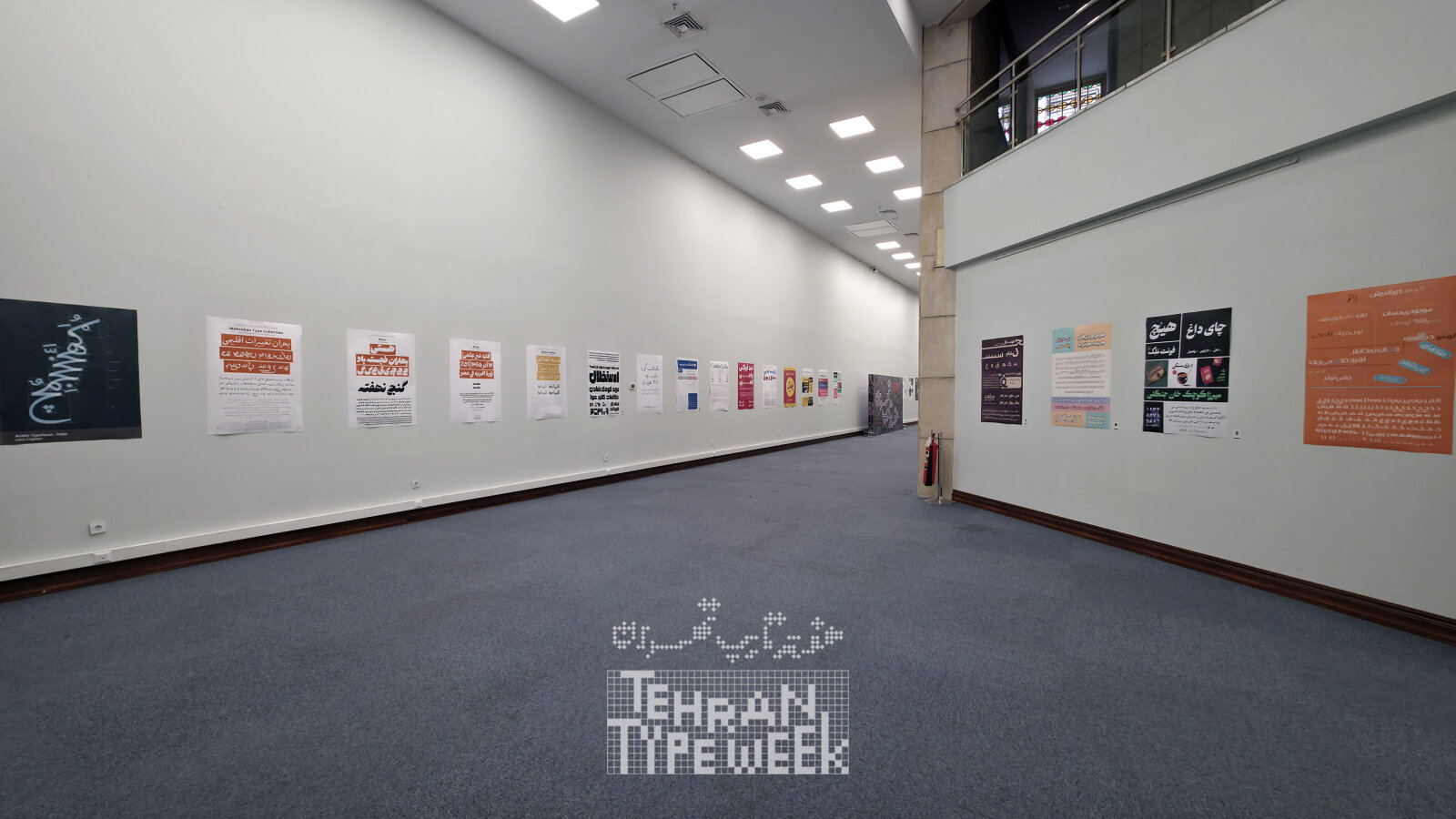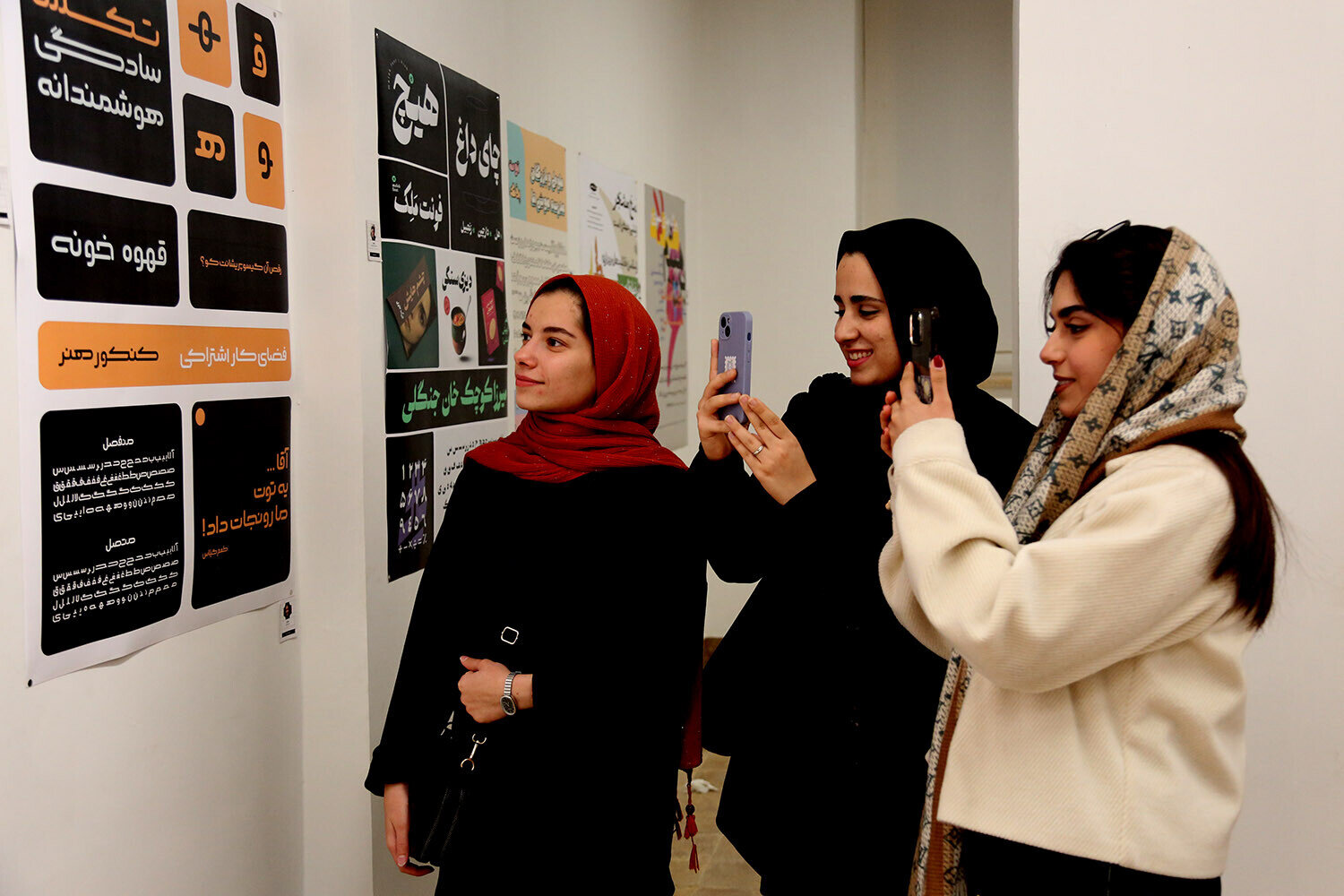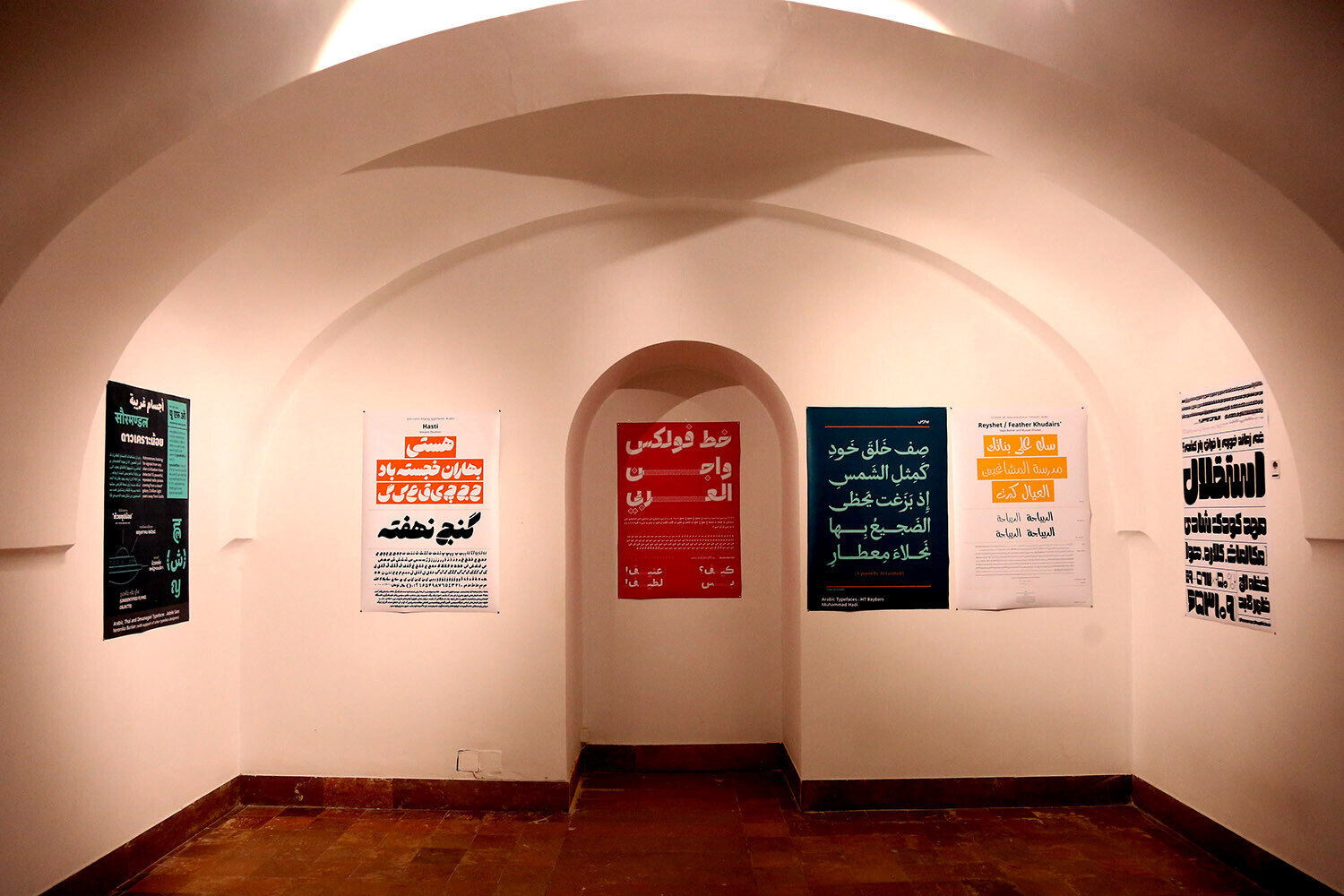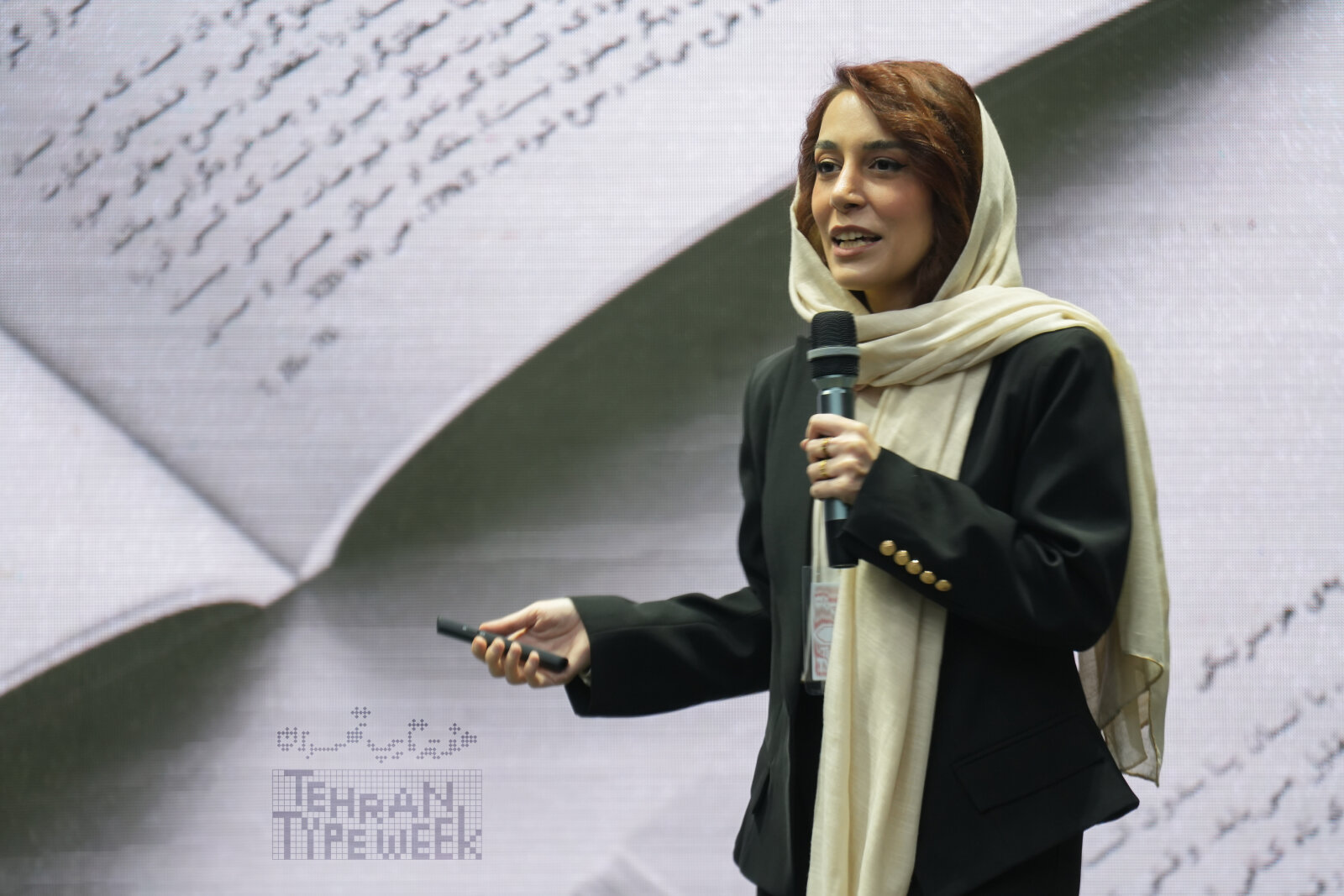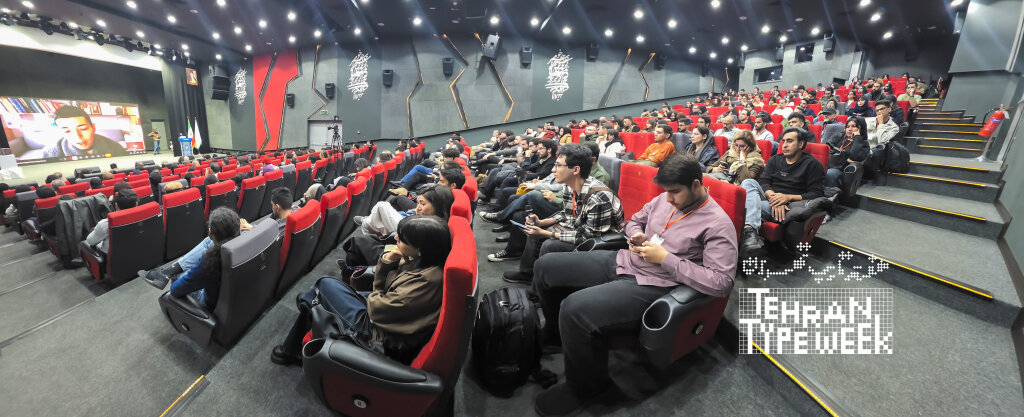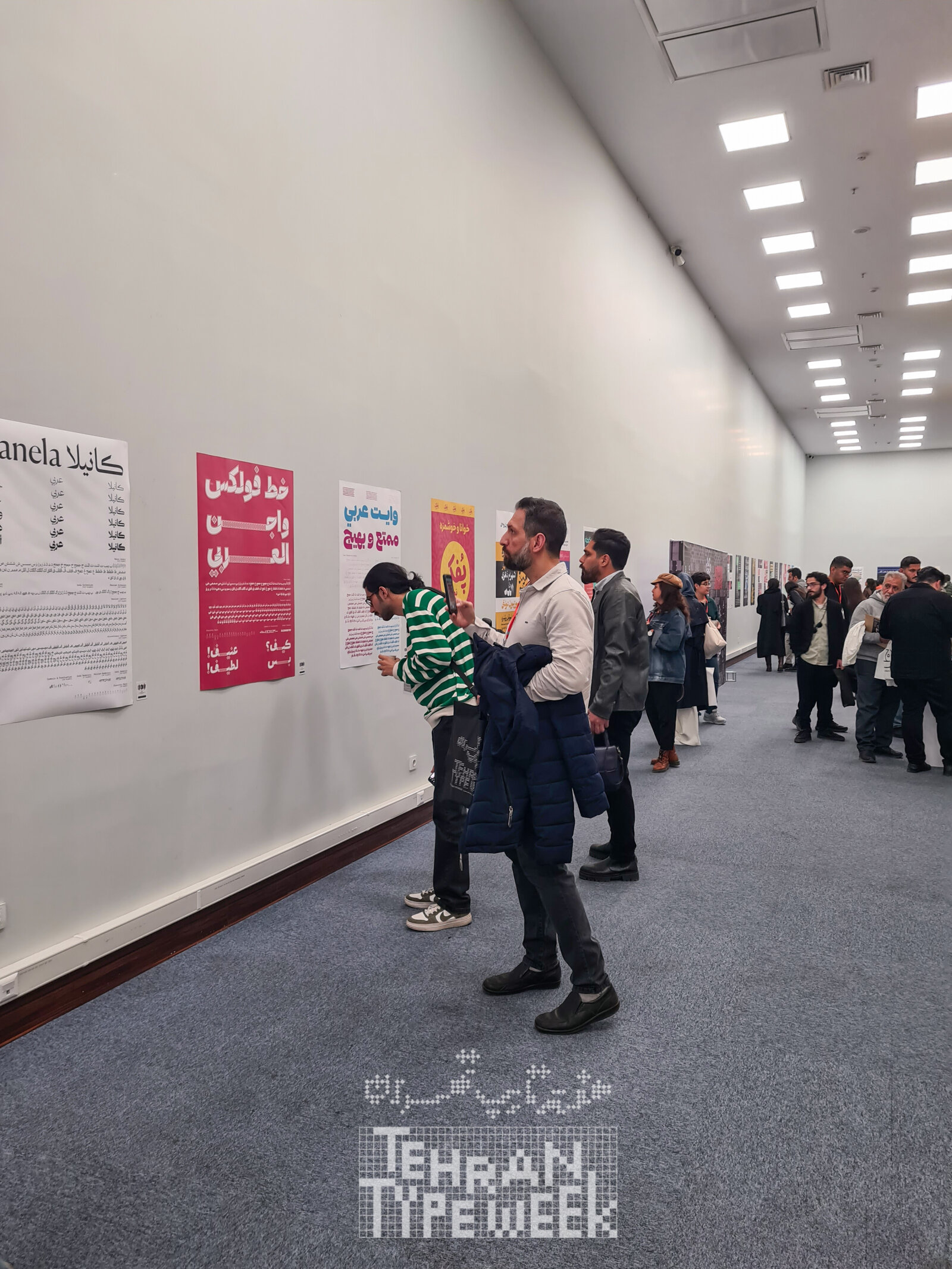
On 27 November 2025, the third edition of Tehran Type Week took place at Kooshk Bagh-e Honar in Tehran, marking a new chapter in the event’s development and in its collaboration with GRANSHAN. For the first time, Tehran Type Week was presented with an international approach, creating a shared platform for exchange between Persian and Arabic type designers, researchers, and educators from Iran and beyond.
With more than 300 participants, the event reaffirmed its role not as a one-off exhibition, but as a long-term, research-oriented cultural initiative one that understands typography as a living practice shaped by reading habits, language, and cultural memory.
Founded and directed by Atefeh Mohammadi and Majid Shahbodaghi, Tehran Type Week continues to build bridges between disciplines that often operate in isolation, including type design, calligraphy, publishing, education, and visual research. This integrated approach aims to narrow the gap between theory, design practice, and real-world application across both print and digital environments.
The 2025 program combined specialized lectures, open discussions, and hands-on workshops, addressing topics such as digitally underrepresented languages, contemporary type processes, publishing realities, and emerging technologies. The open panel “Gap Type” offered a rare opportunity for designers, researchers, educators, and users to openly discuss shared challenges within the type ecosystem.
GRANSHAN’s Contribution
As part of this edition, GRANSHAN partnered with Tehran Type Week in shaping the International Exhibition, presenting 20 Persian and Arabic type projects from the GRANSHAN archive. Placed alongside Iranian and international works, the exhibition encouraged close comparison between scripts that share calligraphic roots while revealing how cultural context, audience expectations, and design choices lead to distinct typographic expressions.
This collaboration reflects a shared commitment by GRANSHAN and Tehran Type Week to cross-script dialogue, knowledge exchange, and the continued visibility of writing systems beyond Latin within global design discourse.
The exhibition continues at the Isfahan Museum of Contemporary Art, and the newly published Tehran Type Week book documents the research, discussions, and works presented, ensuring that the insights generated extend beyond the event itself.